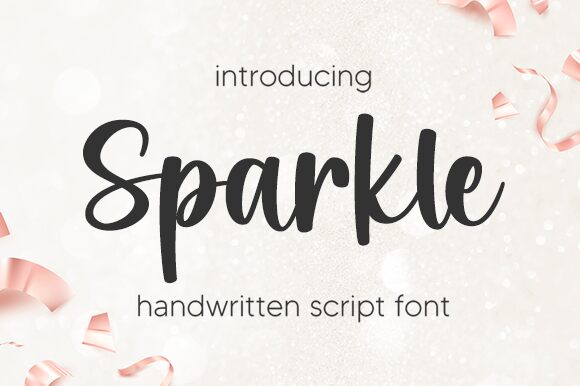
Introducing Sparkle, a cute handwritten script font created by Aldi Raya Pradipta. Perfect for adding a personal touch to your designs, Sparkle is the ideal choice for invitations, logos, posters and greeting cards.